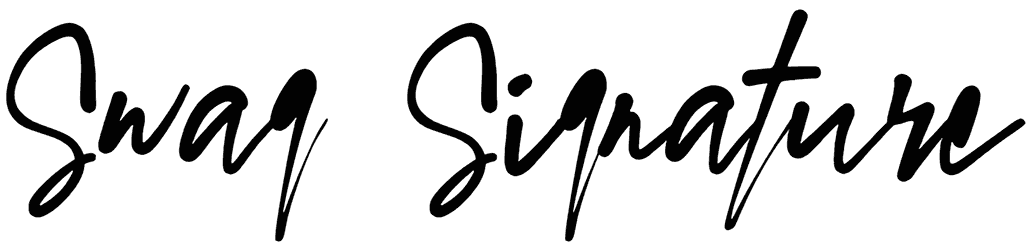
Swag Signature Font
Swag Signature is a handwritten font that may be used to give your digital creations a more organic feel. Ads, posters, fashion, and greeting cards may all benefit from this signature font‘s casual vibe, despite being a bit unreadable.